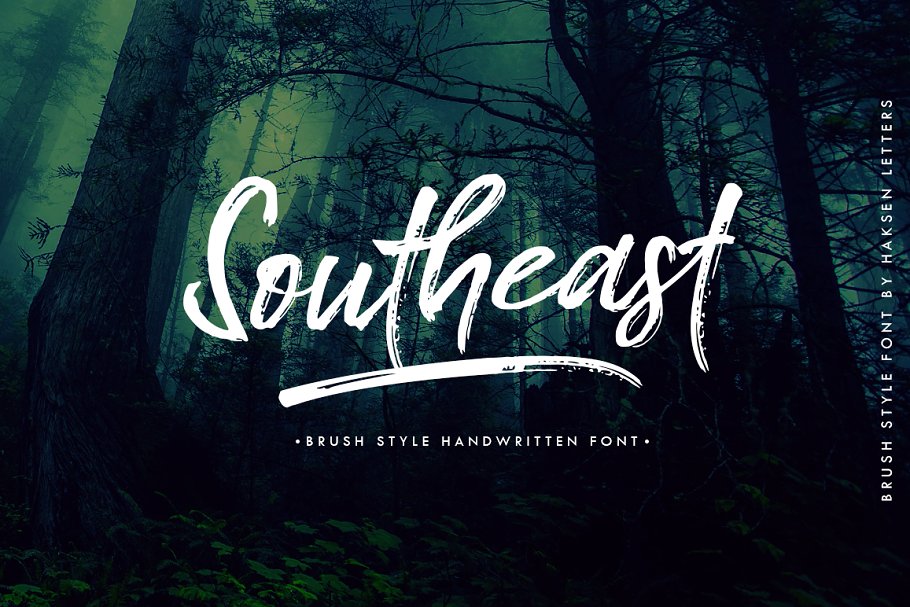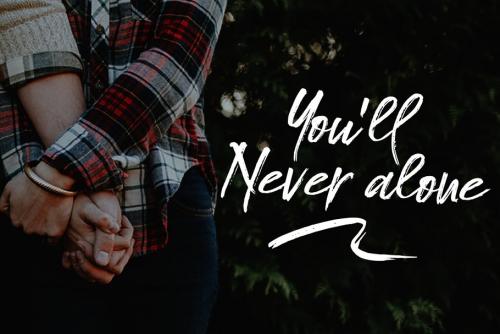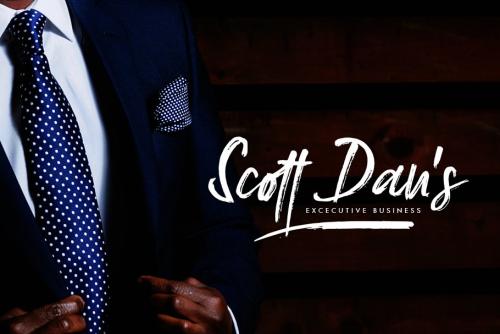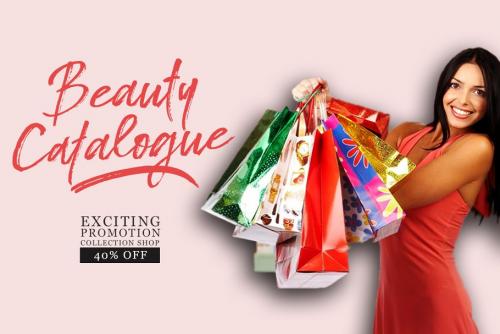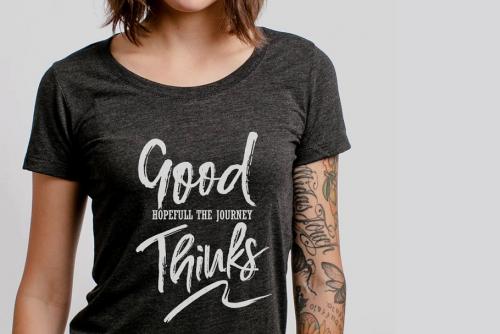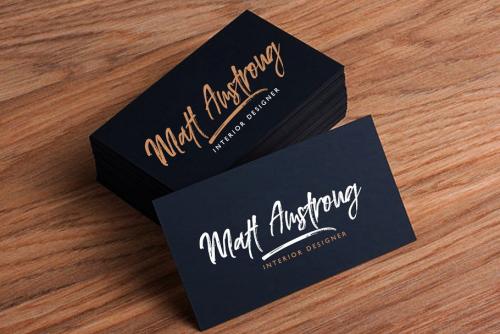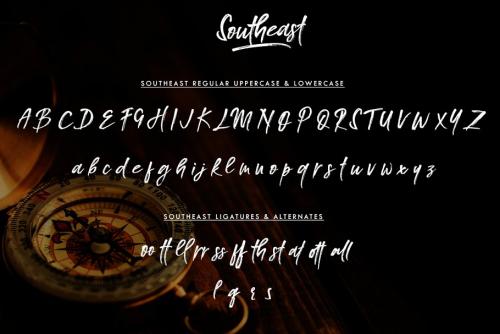
I Would like to introduce my New Product “Southeast” The new fresh handmade brush script font. Very suitable for greeting cards, branding materials, business cards, quotes, posters, and more! This font are perfect for all brand 🙂
- Designer: Haksen